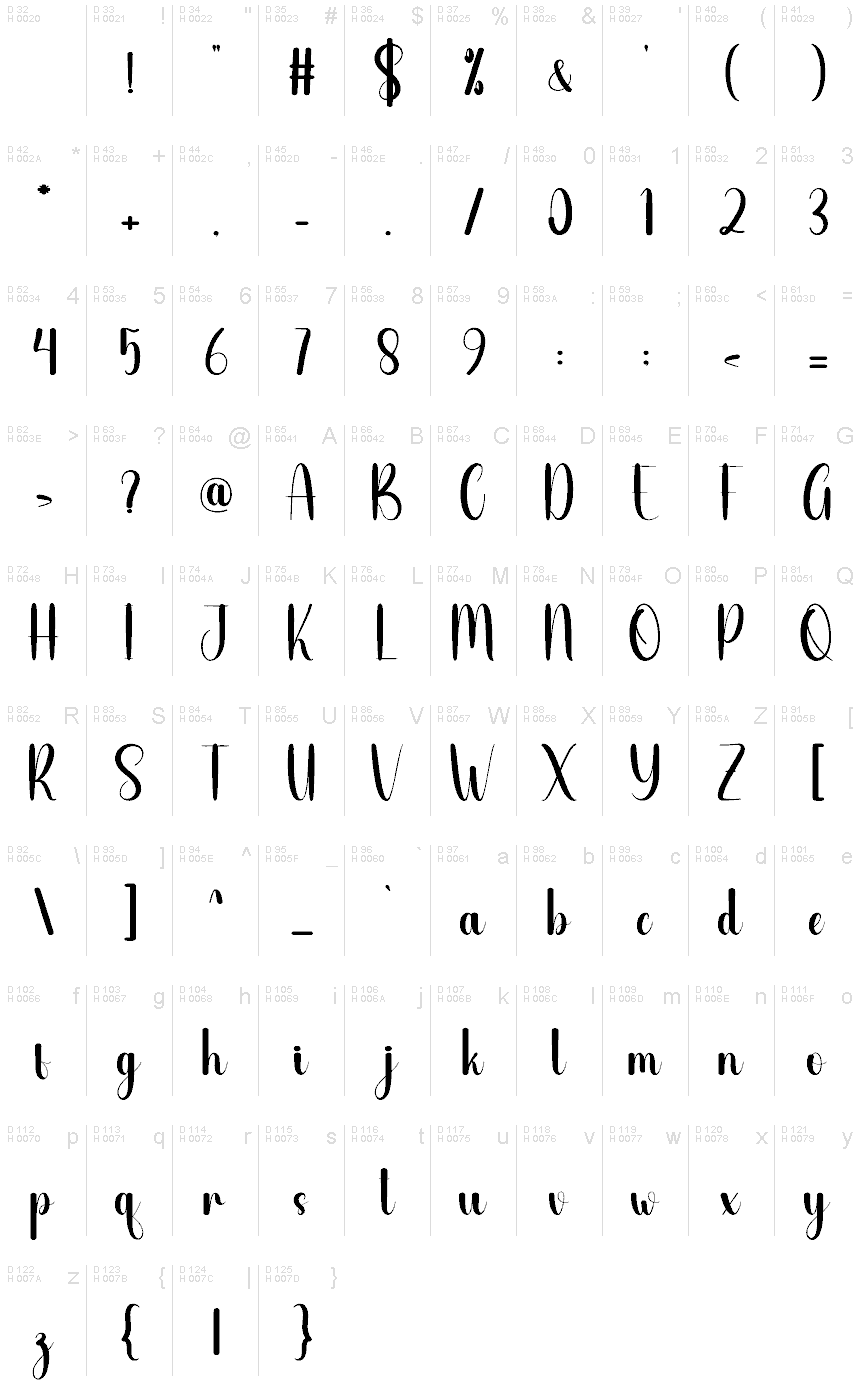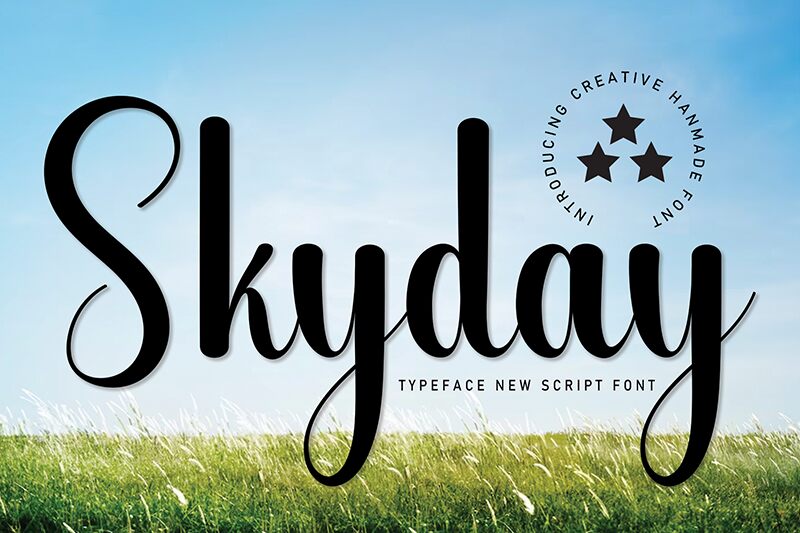
Skyday
Skyday font by Andi Moz is a free calligraphy font with elegant flowing aesthetics and script style. Its modern appeal can elevate any project design with its sophisticated visual appearance. The typeface provides an artistic sense of movement through each character making it highly engaging to every viewer.\n\nUse this font in branding designs, advertising, promotional items, posts or stories on social media networks, magazines, headings, invitations, packages and more.